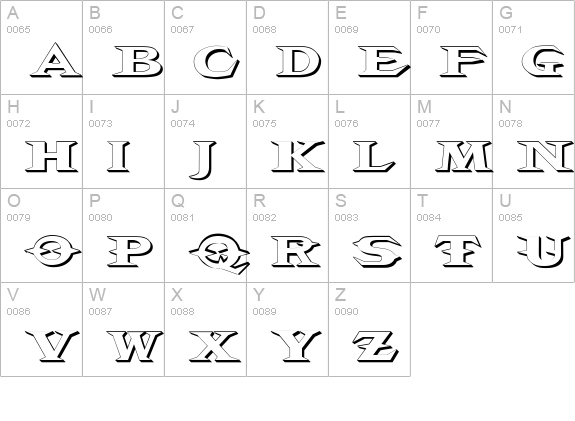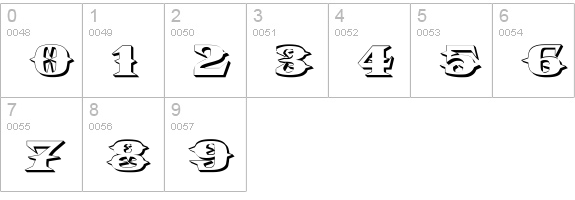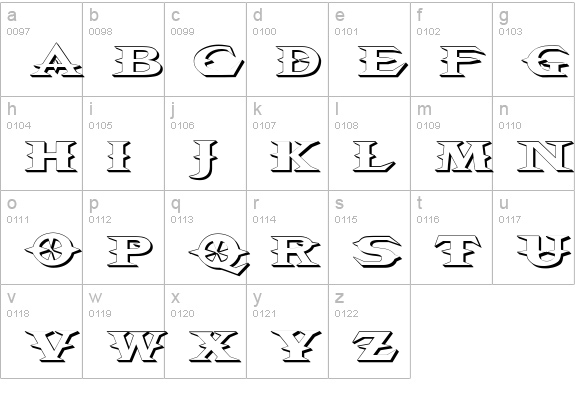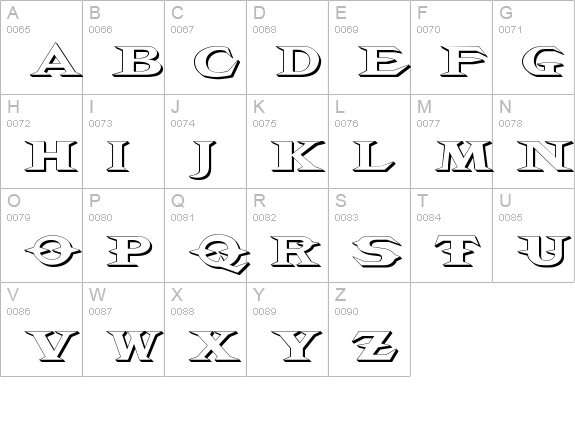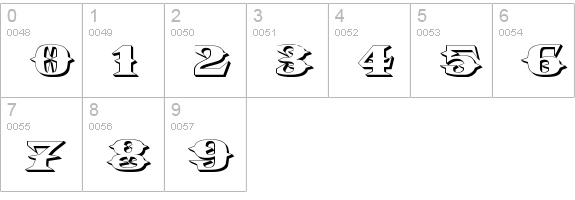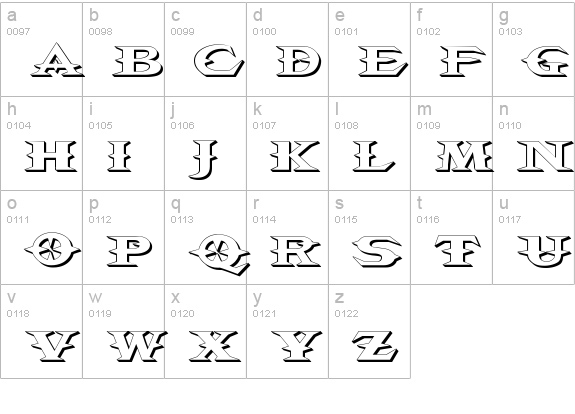
VTCBelialsBlade3d Font Details
VTCBelialsBlade3d font is a mesmerizing and bold typeface that will captivate any audience. Its intricate 3D design adds depth and dimension to your typography, making it stand out from the crowd. This font exudes power and sophistication, making it perfect for headlines, logos, and branding projects. What sets VTCBelialsBlade3d font apart is not just its striking aesthetics, but also its accessibility. It is available for free download at FontsMarket.com, allowing designers, artists, and enthusiasts to effortlessly incorporate this stunning font into their creative endeavors. With just a few clicks, you can enhance your designs with this visually arresting typeface without breaking the bank. Whether you're looking to create eye-catching posters, captivating social media graphics, or memorable website headers, VTCBelialsBlade3d font is your secret weapon. Its sharp edges and dynamic composition will make your text come alive, leaving a lasting impression on your audience. Embrace the power of VTCBelialsBlade3d font and unleash your creativity with this freely available typeface. Download it today at FontsMarket.com and experience the thrill of transforming your designs into something truly extraordinary.